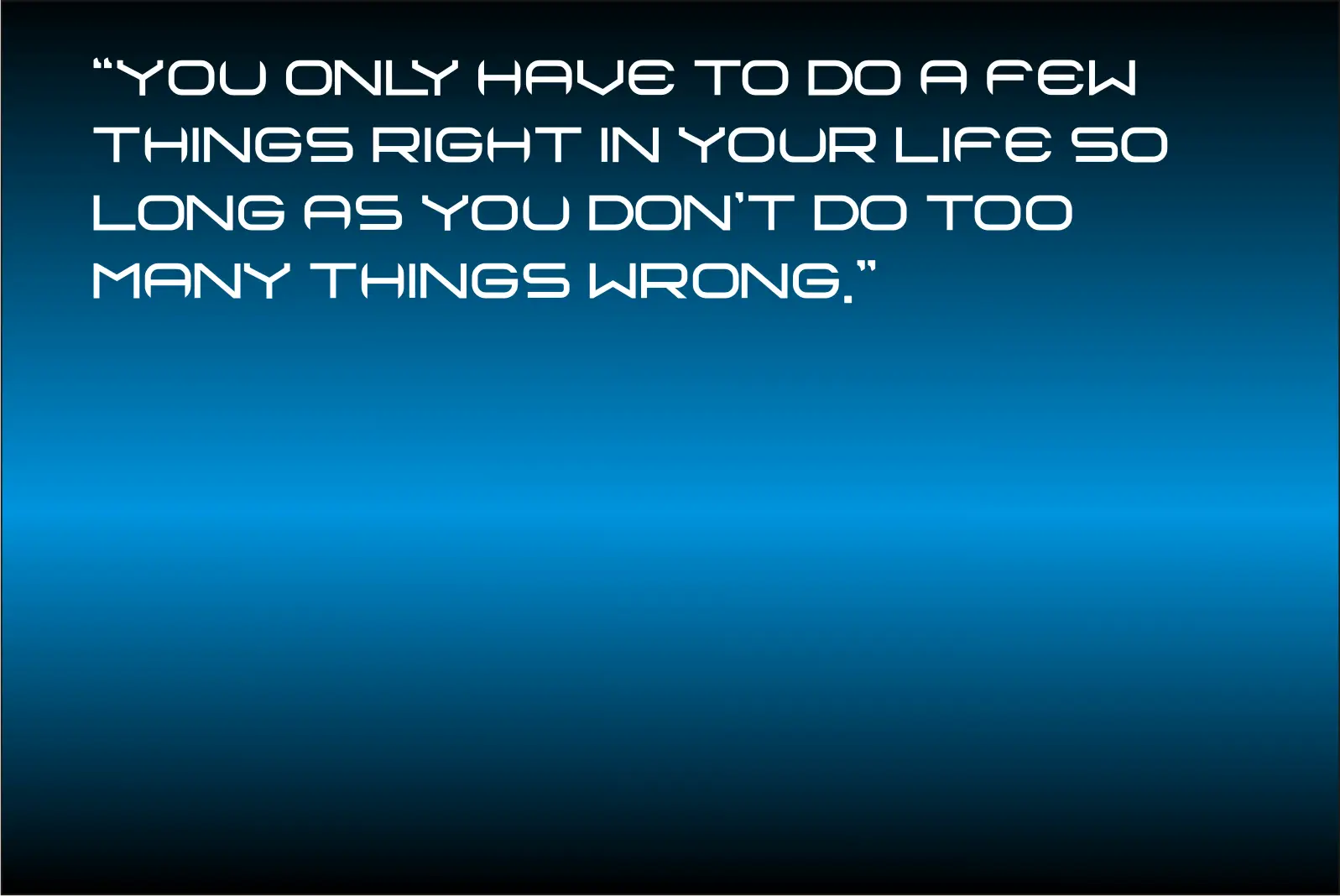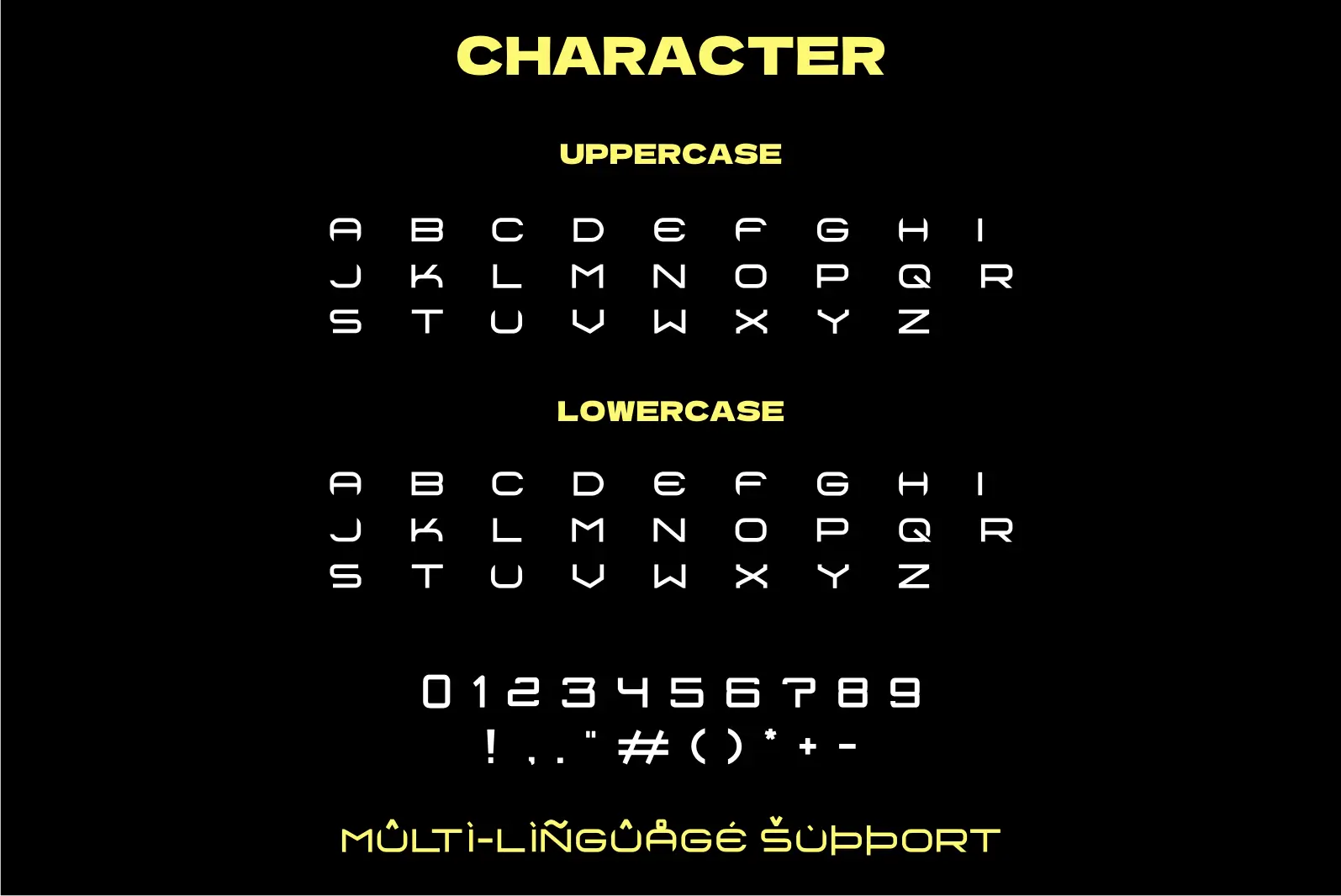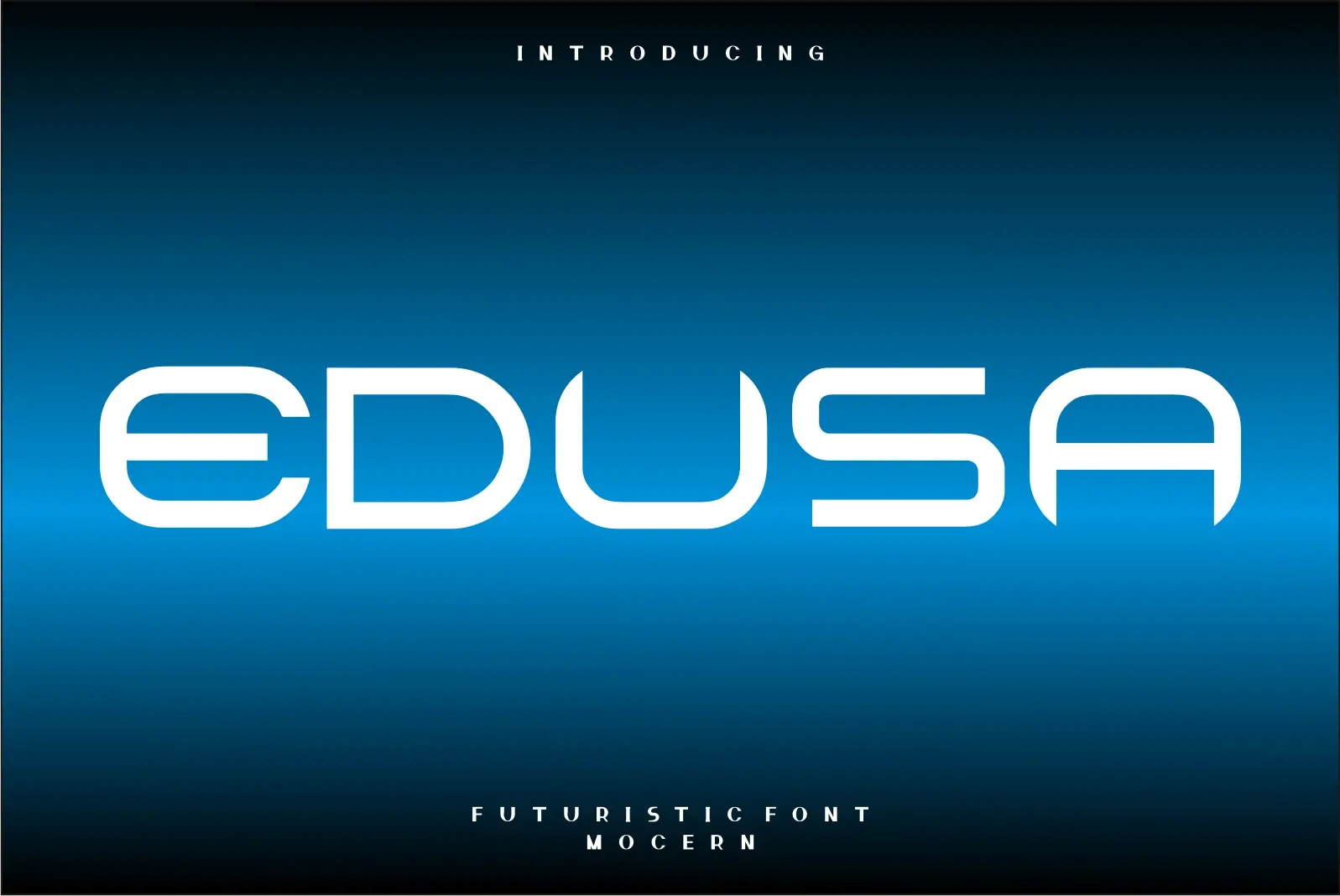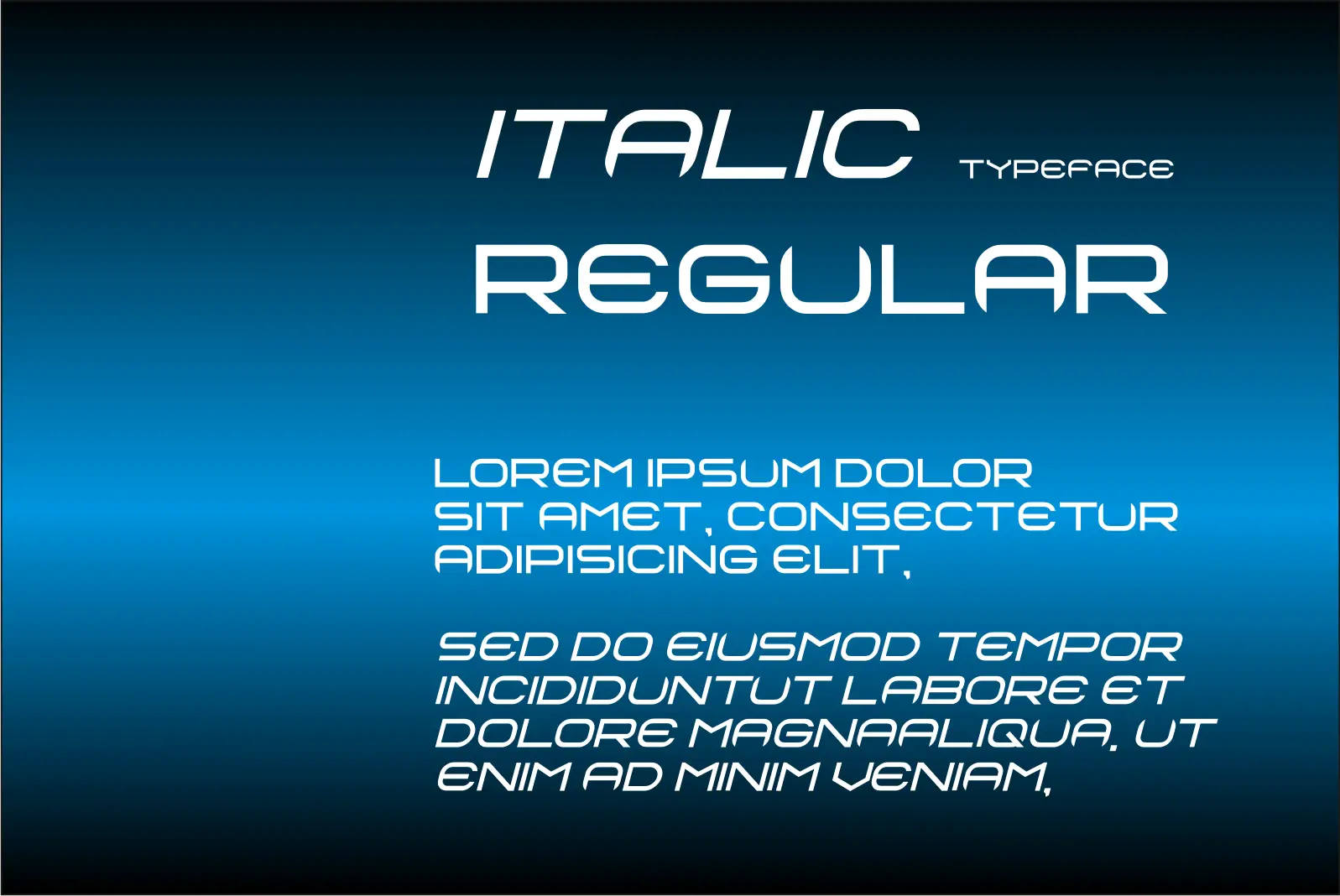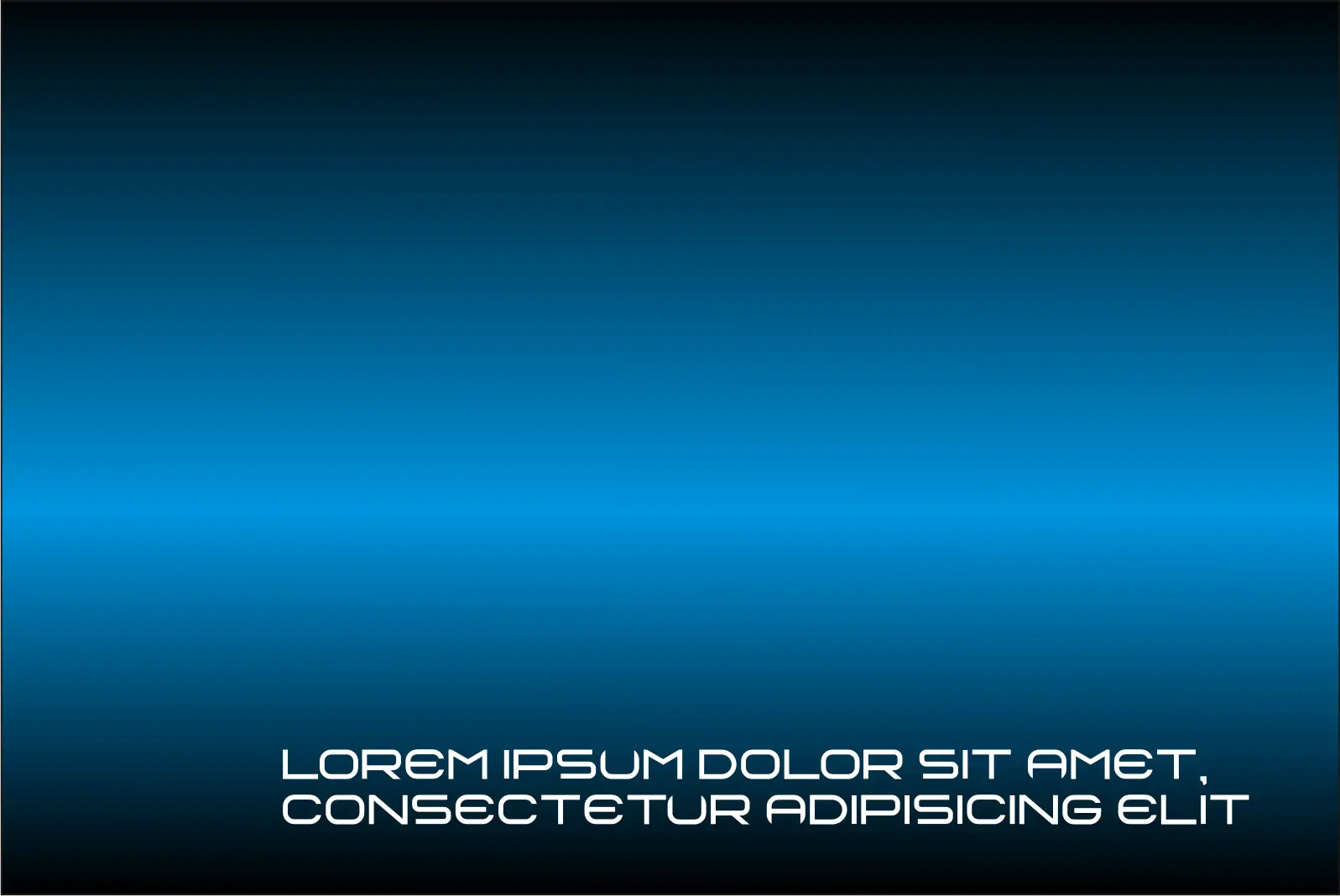
Edusa Display Font
The Edusa Display Font is a unique and stylish typeface designed to make your projects stand out. With its bold and eye-catching design, this font is perfect for a variety of applications, including branding, logos, and promotional materials.
Edusa features a range of weights and styles, ensuring versatility for different design needs. Available in OTF and TTF formats, it is suitable for both web and print use.
• Ideal for headlines and display text.
• Use in branding projects to create a memorable identity.
• Combine with complementary fonts for a balanced design.